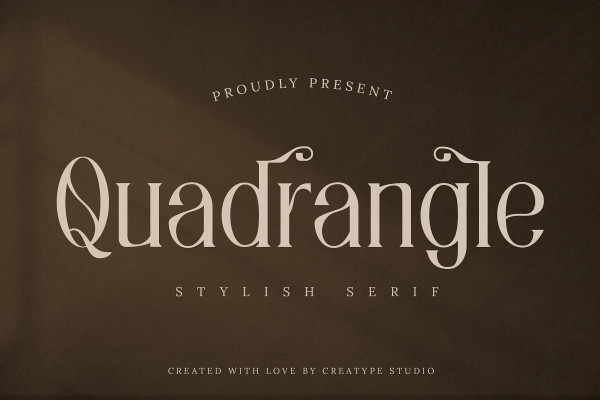
Quadrangle Font
Quadrangle Font, the rich, stylish serif that twists harmoniously together – to form unique & elegant typography designs.
Quadrangle is perfect for branding projects, logos, wedding designs, social media posts, advertisements, product packaging, product designs, label, photography, watermark, invitation, stationery, and any projects that need handwriting taste.